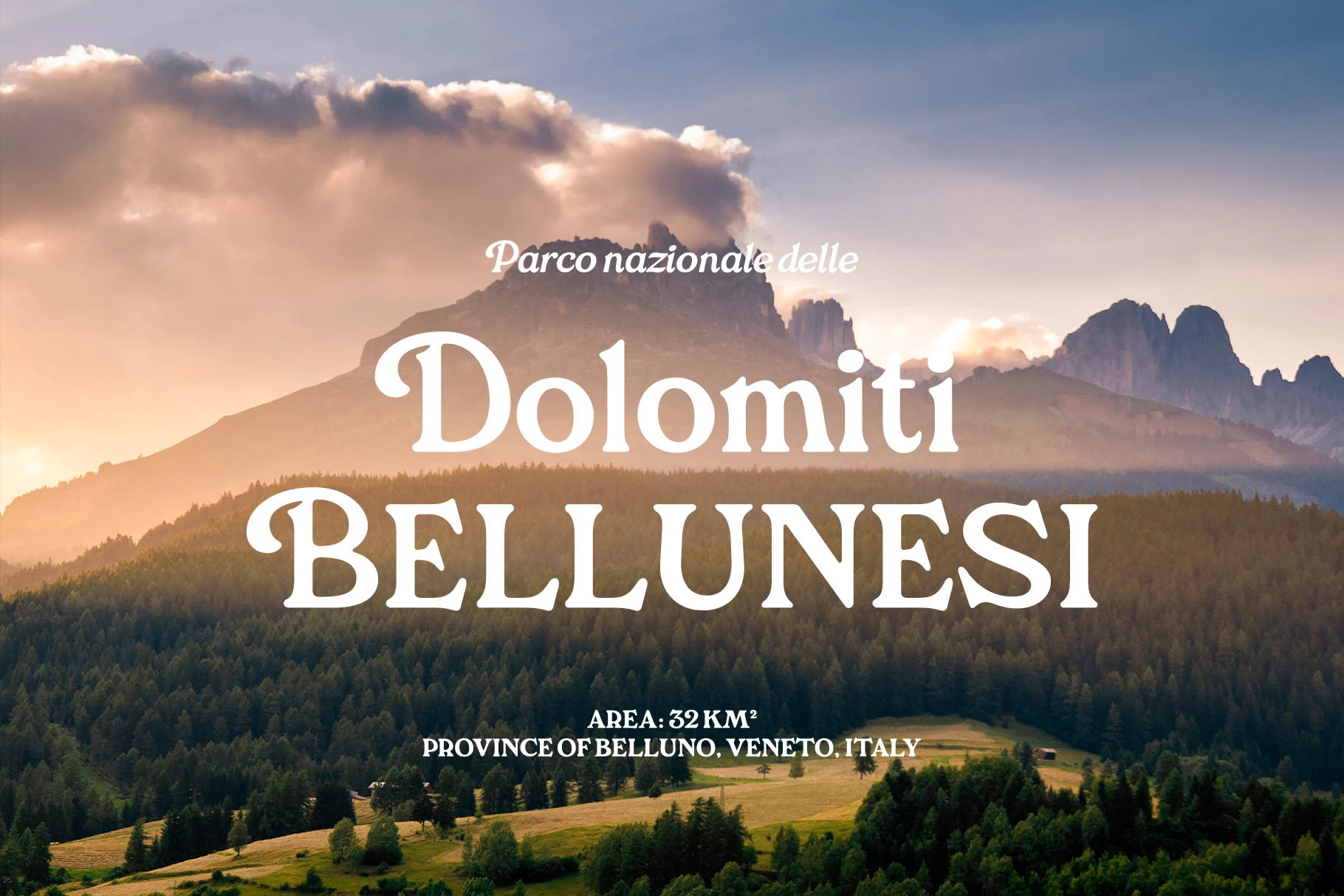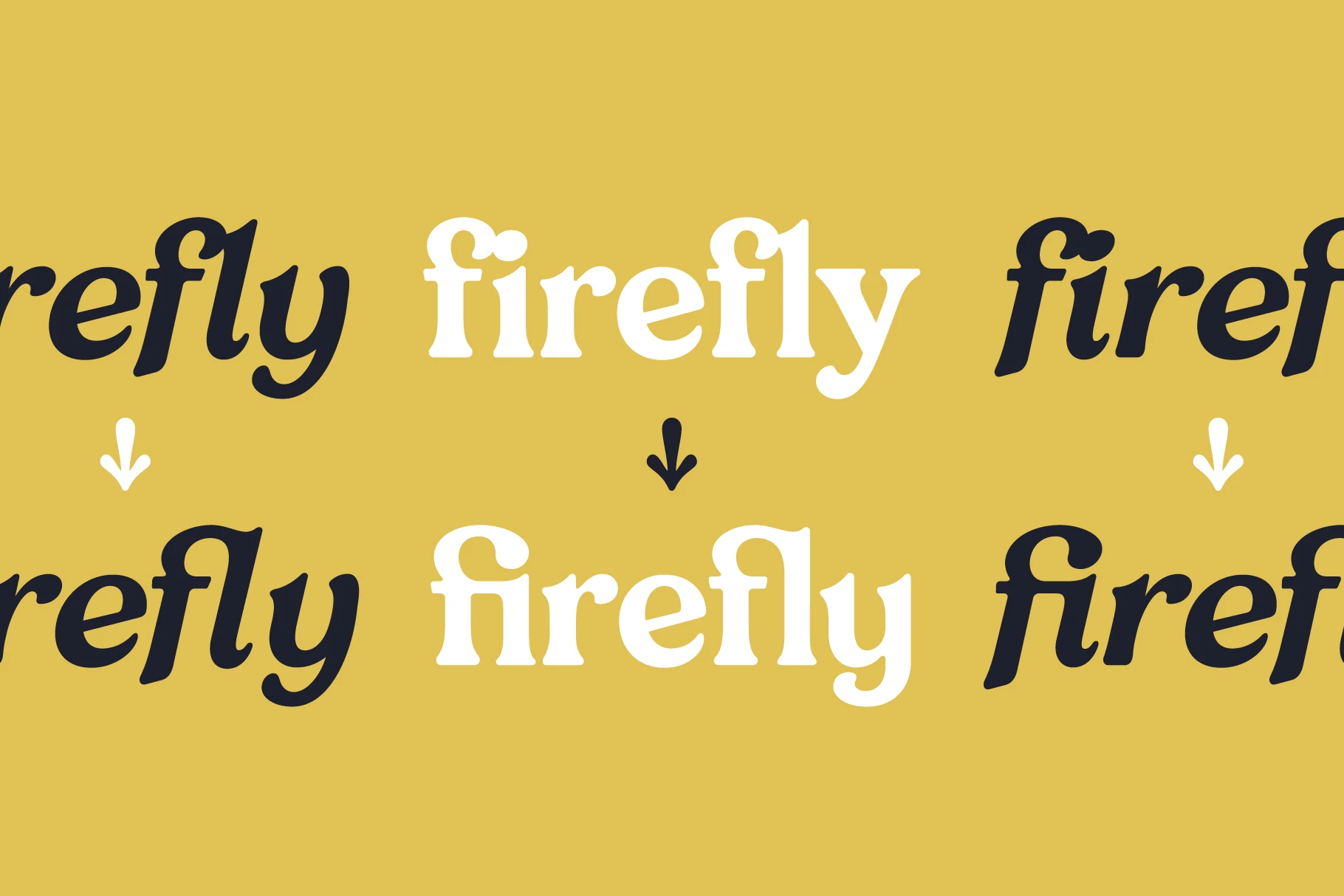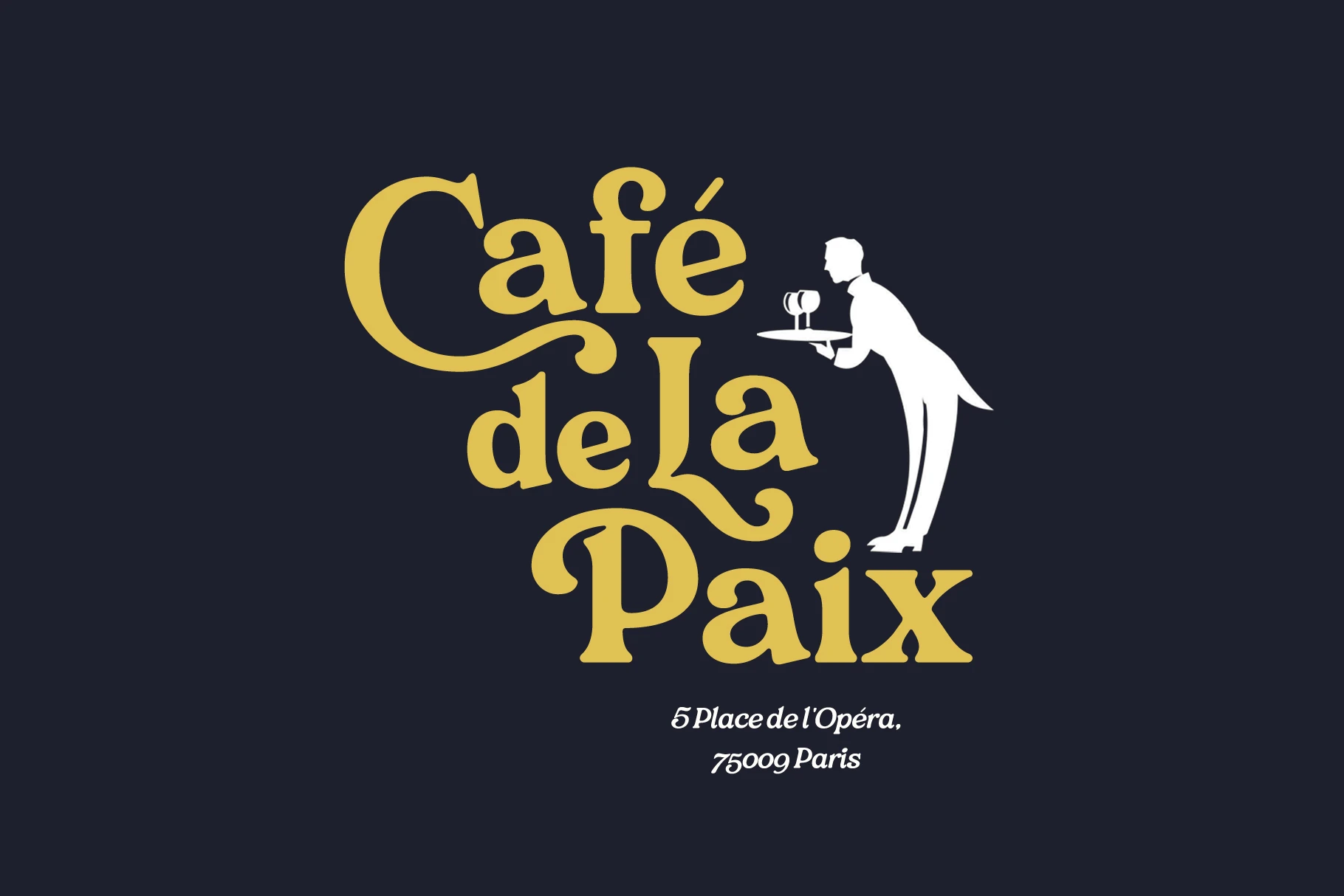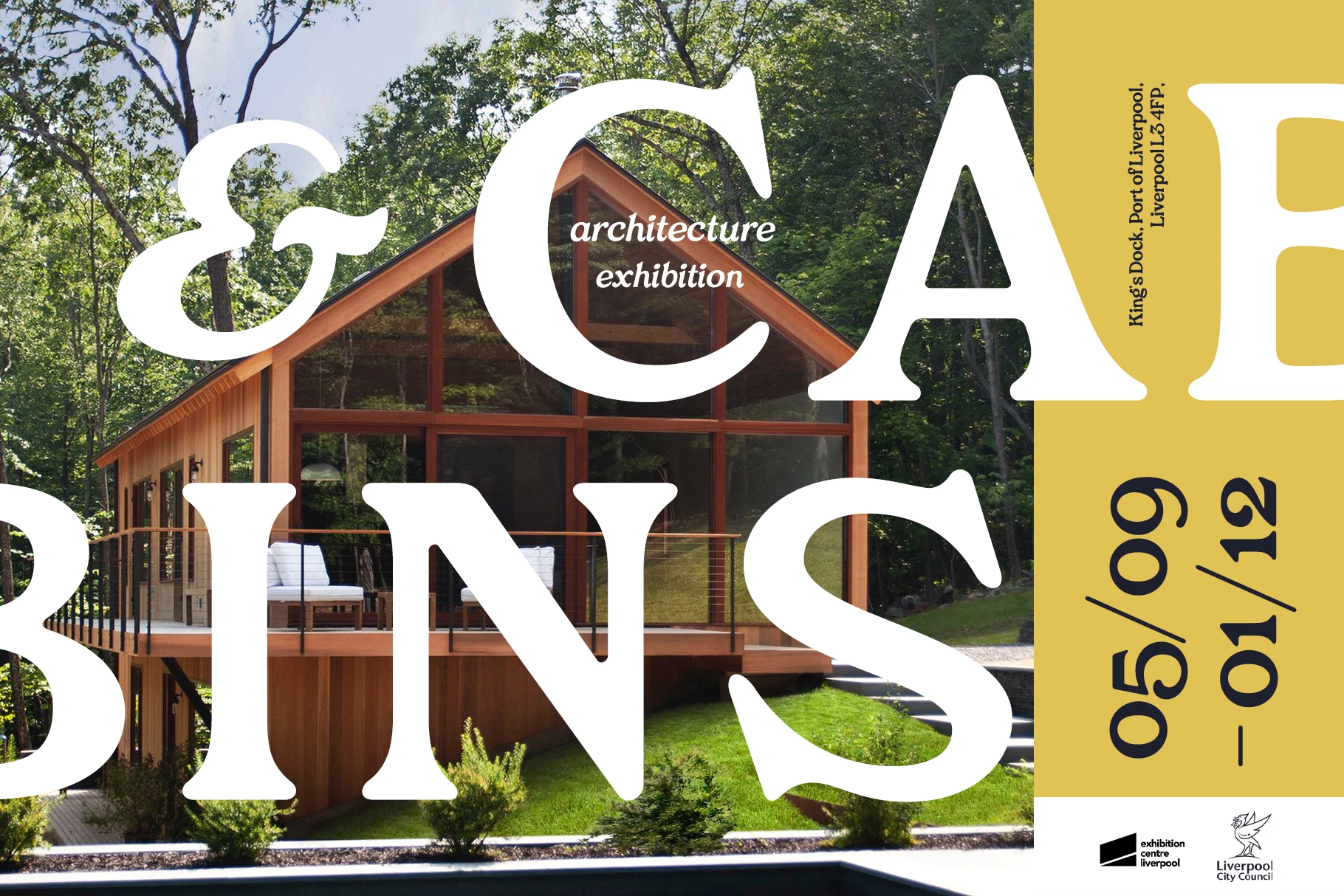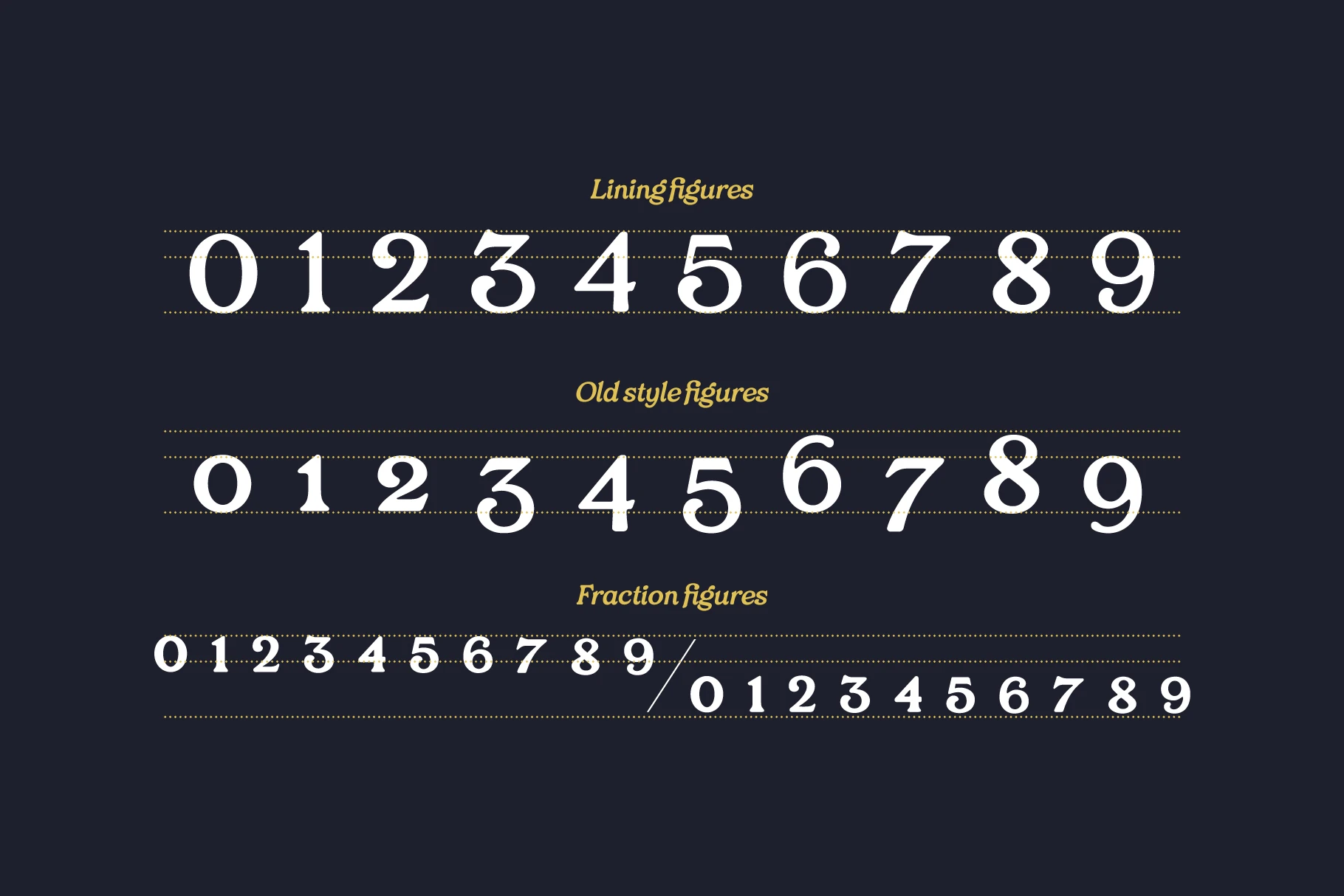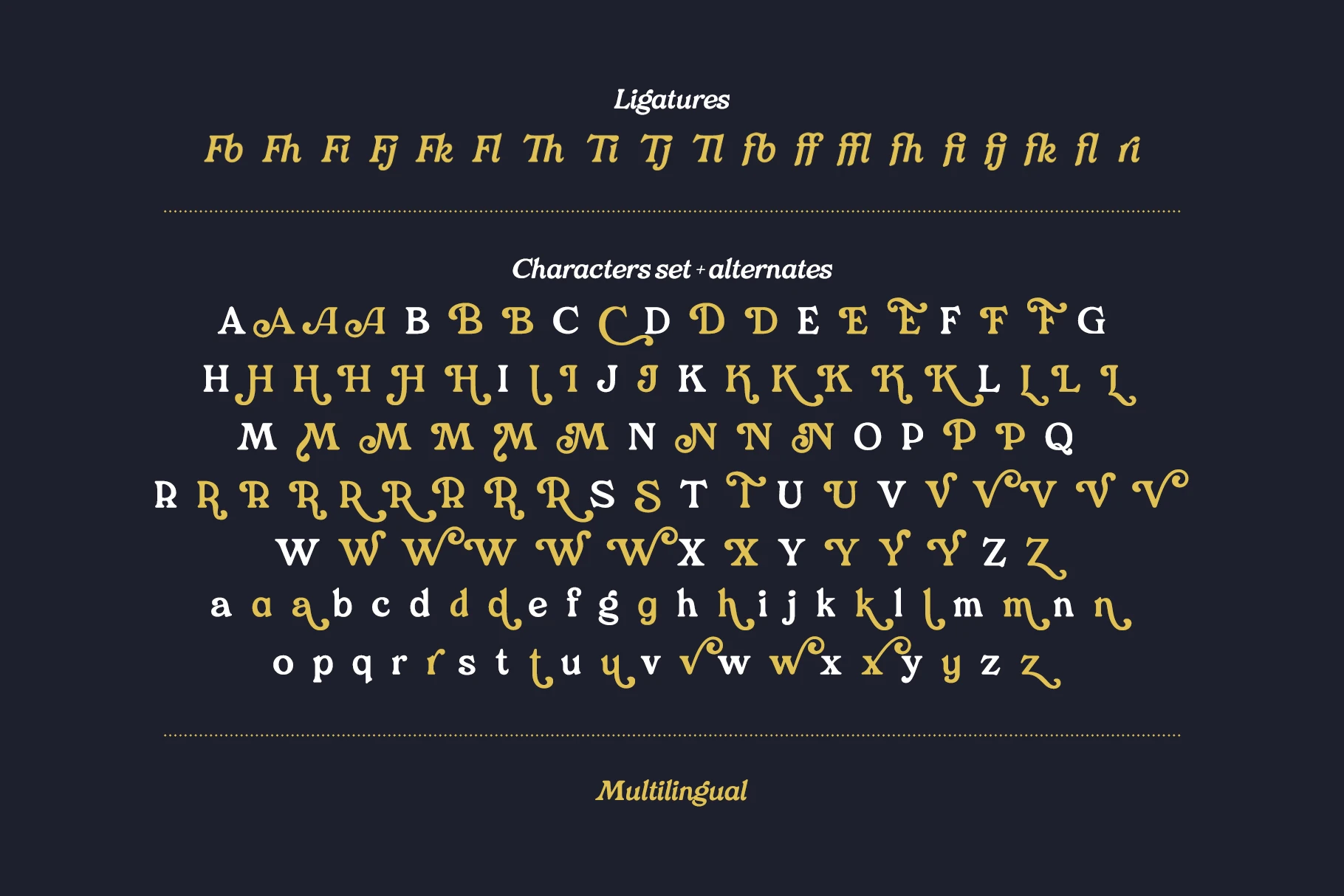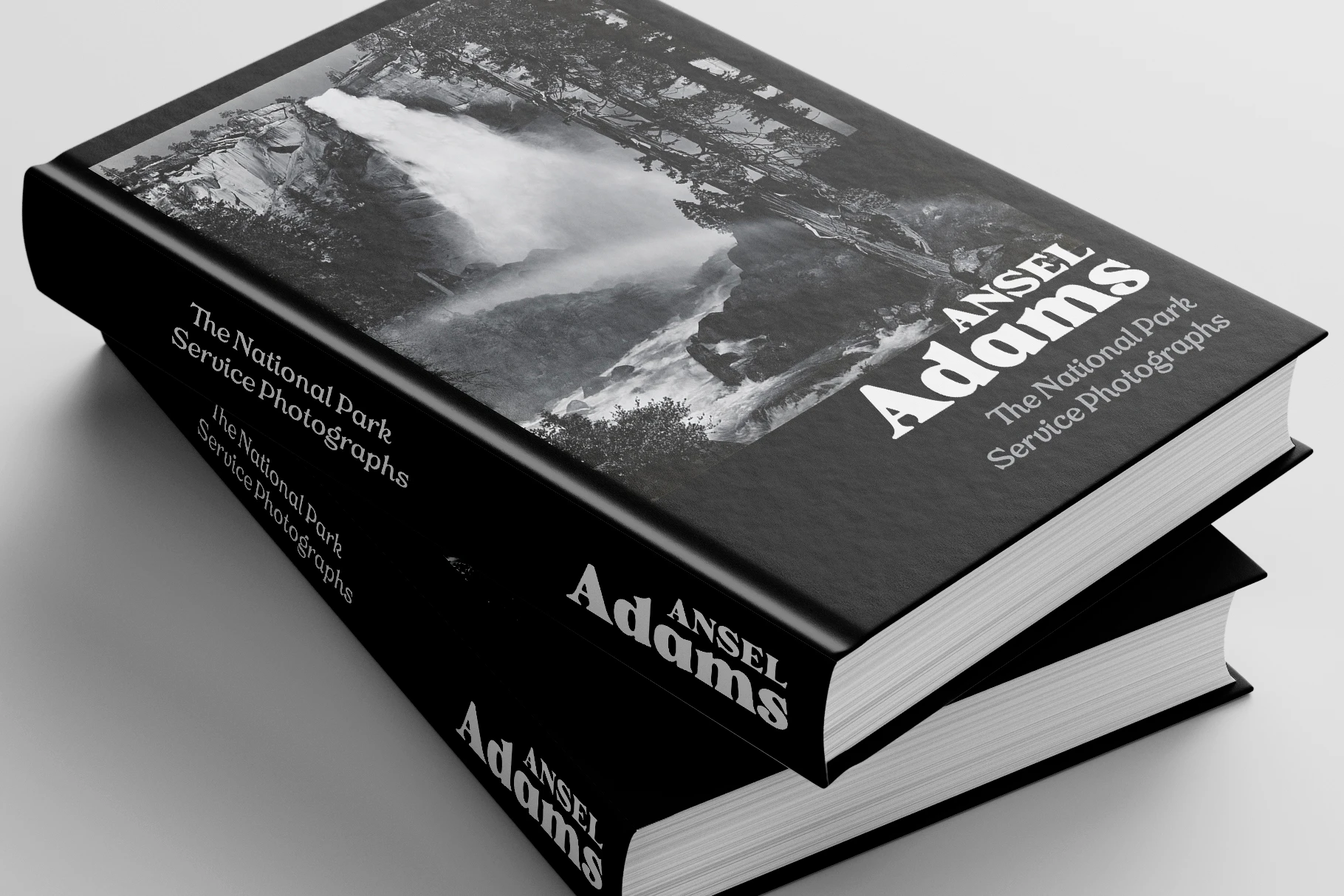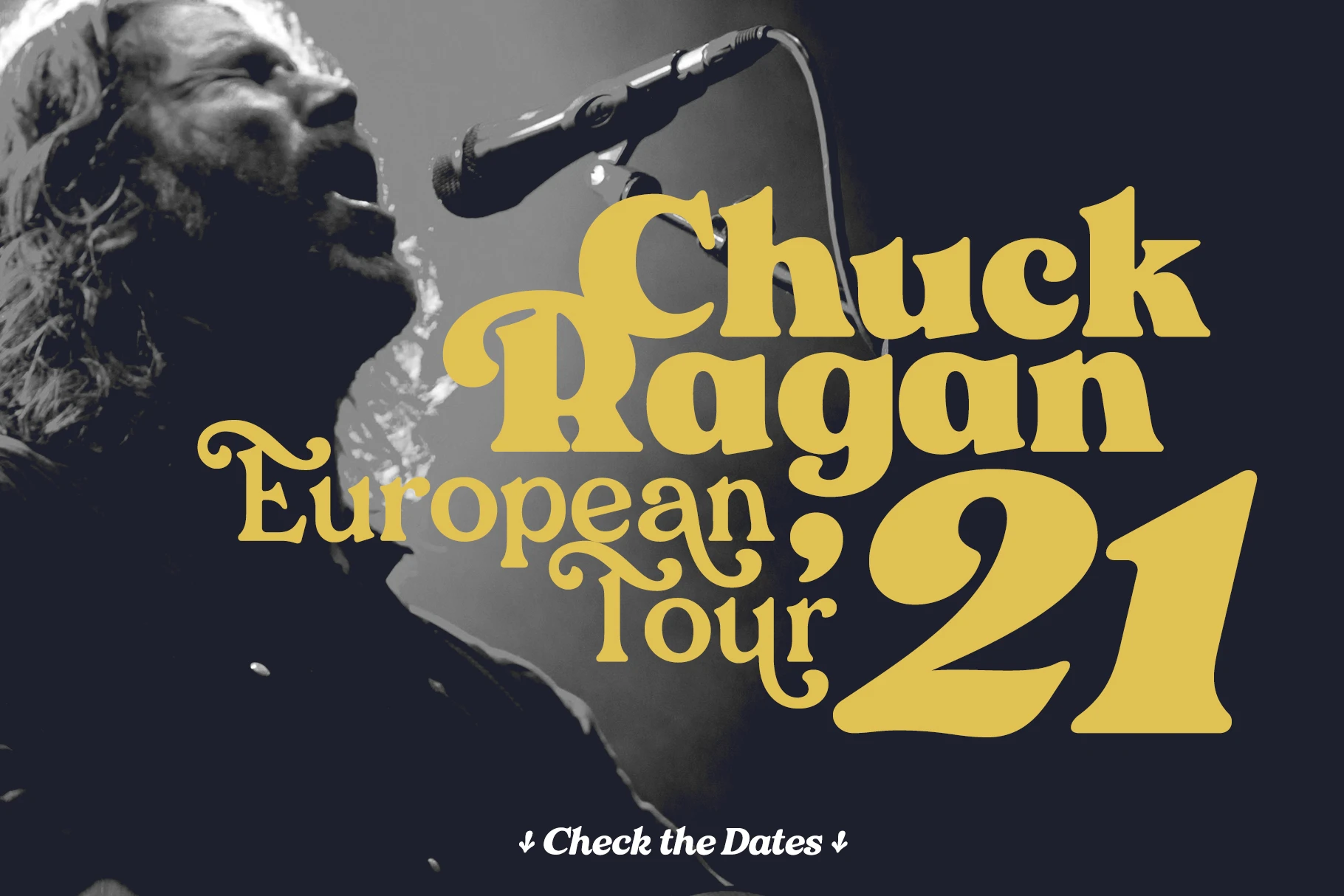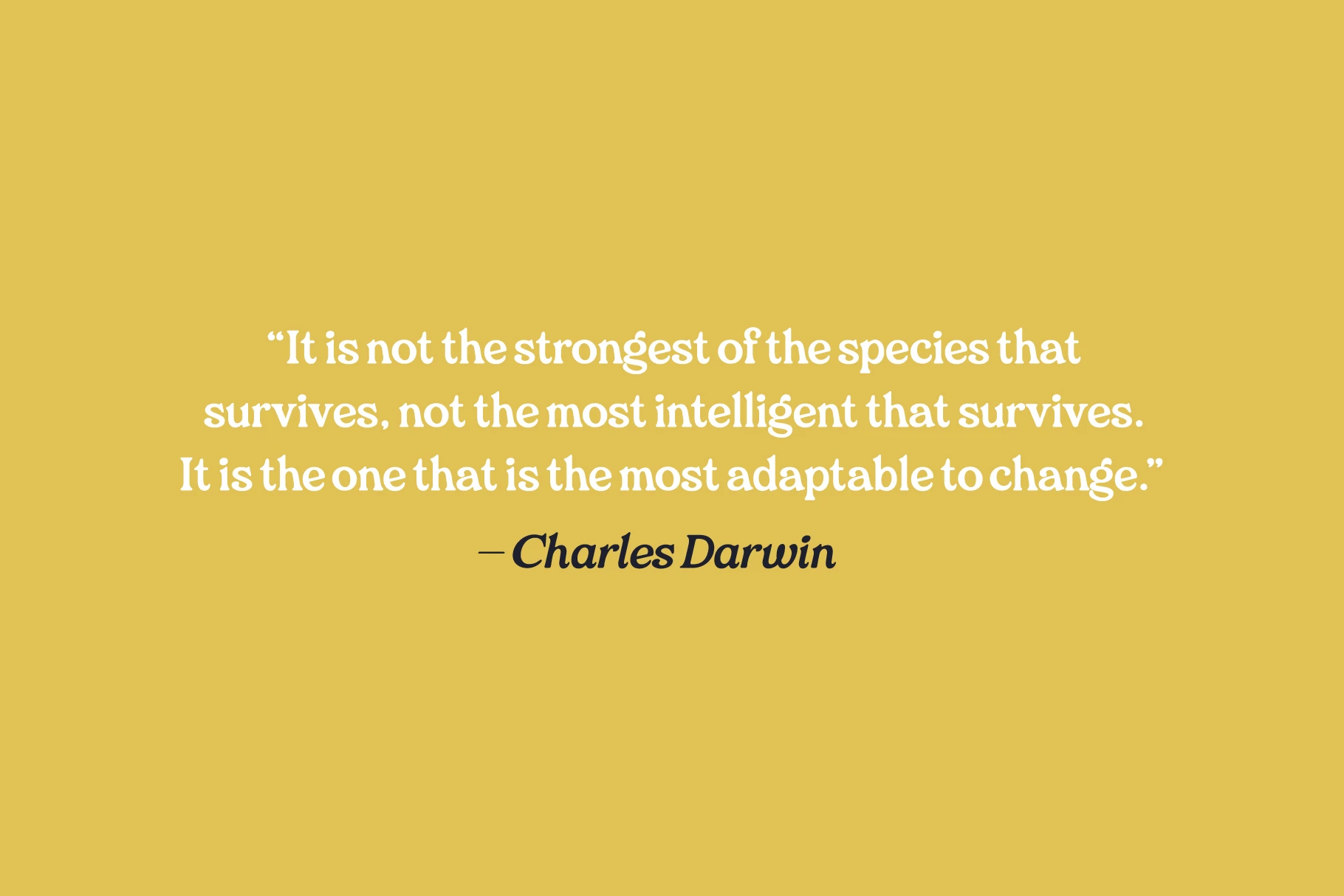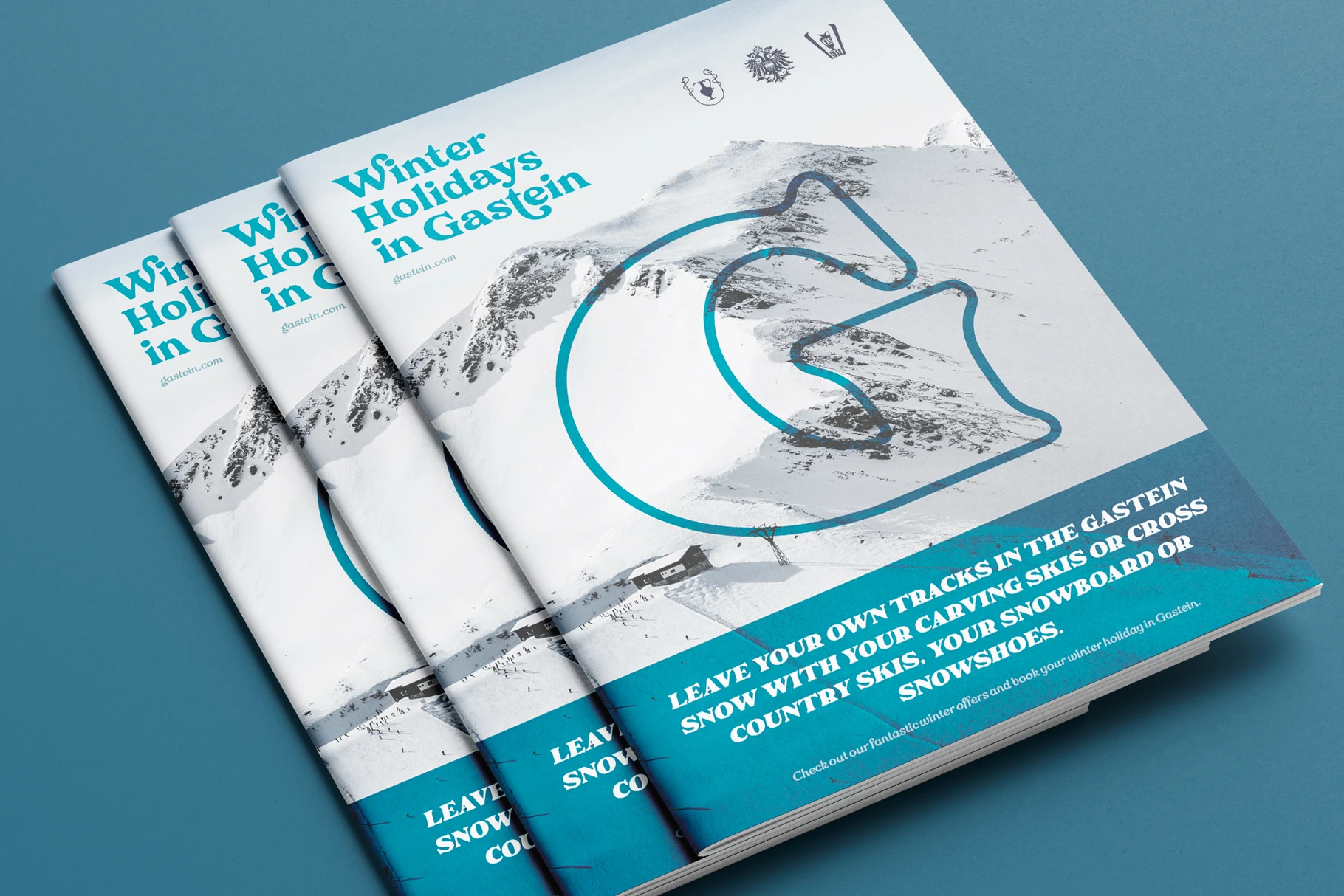
Rashfield • 10 styles
Rashfield is a soft serif type family with five weights and matching italics. Inspired by the classic Windsor style featured in Woody Allen movie titles, it carries a gentle, retro tone with outward-bent h, m, and n characters. Includes a wide range of stylistic alternates for playful and expressive typography. Ideal for logos, prints, branding, web design, packaging, and more. Suitable for short, bold headlines as well as longer blocks of text. Designed for modern projects with a hint of vintage film charm.
• Common Ligatures
• Fractions
• Lining Numerals
• Old Style Numerals
• Ordinal Numerals
• Stylistic Alternates
• Stylistic Sets
• Subscript
• Superscript